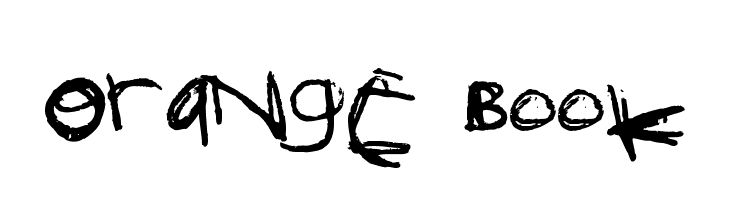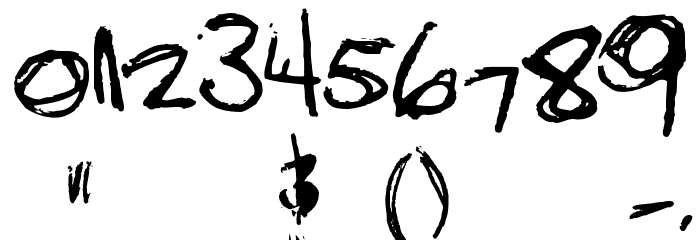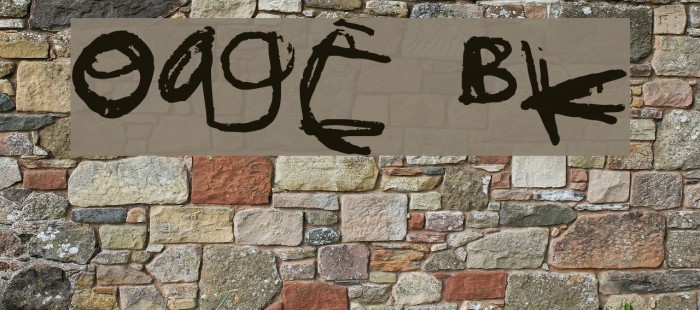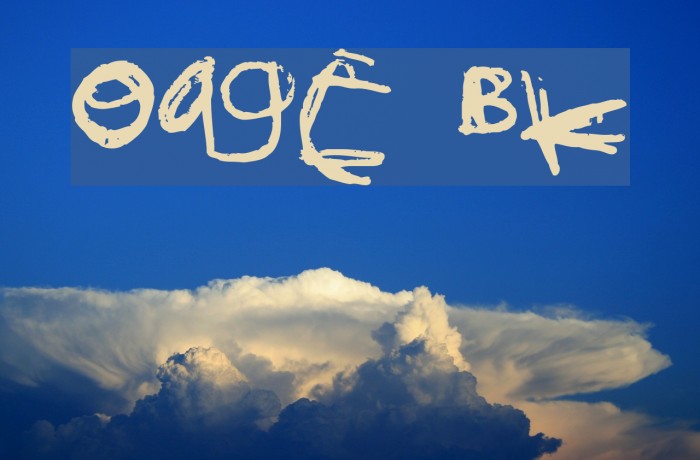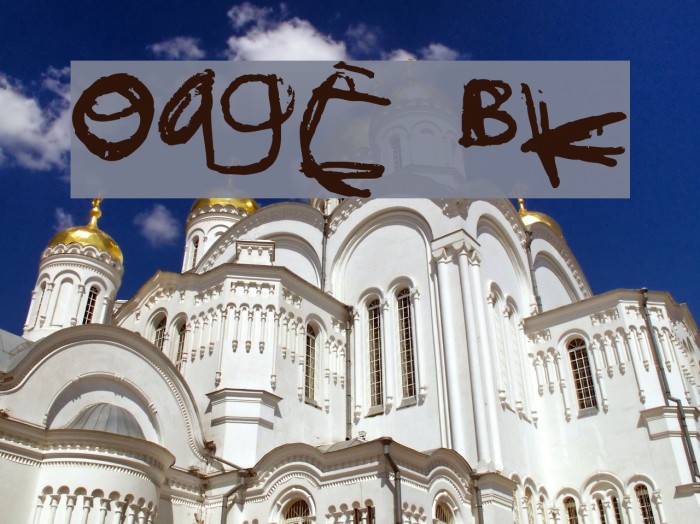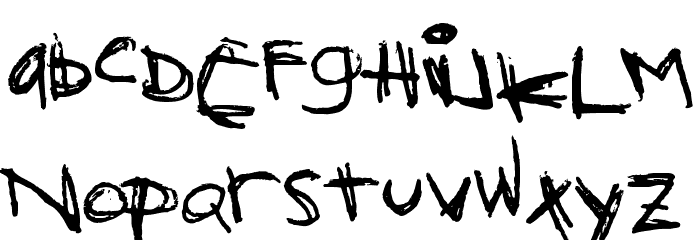
Orange Book Font
This font exhibits a bold, expressive style with a hand-drawn, brush-like appearance. Each character is uniquely crafted, featuring irregular strokes and varying thicknesses that give it a raw, artistic feel. The uppercase and lowercase letters maintain a consistent aesthetic, with exaggerated curves and angles that enhance its dynamic look. Numbers and special characters follow the same design principles, ensuring a cohesive visual experience. The font's rugged texture and spontaneous form make it ideal for projects that require a touch of creativity and individuality.
A bold, hand-drawn font with a brush-like, expressive style.
• Proposed Projects: Ideal for artistic projects, album covers, posters, and creative branding.
• Category: Decorative/Display
• Bold: Yes
• Italic: No
• Weight: Bold
• Width: Normal
• Character Spacing: Normal
• Contrast: High
• Overall Style: Decorative
• Use Case: Headlines, Logos